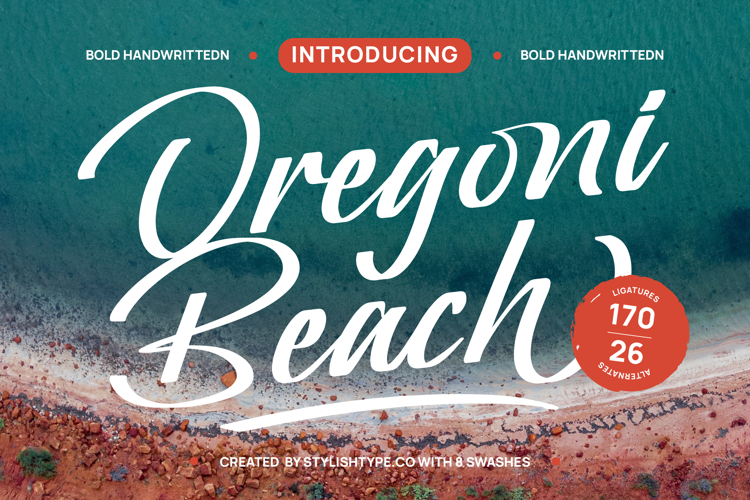
Oregoni Beach - Bold Handwritten Font
Unleash authentic handcrafted charm with Font Oregoni Beach - Bold Handwritten Font Script, a truly captivating typeface designed to make a statement. Its bold, flowing strokes exude a sense of effortless elegance and organic authenticity, mimicking genuine human touch. This script font offers an immediate visual impact, perfect for projects demanding , yet polished, aesthetic that stands out with its dynamic grace.
Experience unparalleled design flexibility with Font Oregoni Beach - Bold Handwritten Font Script. Beyond its captivating base form, this font boasts an impressive array of expressive ligatures, numerous versatile alternates, and practical swashes, empowering designers to craft truly unique compositions. These intricate details ensure every application feels bespoke and meticulously styled, lending a handcrafted precision to your designs.
With its extensive multilingual support, Font Oregoni Beach - Bold Handwritten Font Script adapts seamlessly across global markets, making it incredibly versatile for international projects. This crucial feature ensures your message resonates worldwide, maintaining its original charm and readability regardless of language. Embrace a font that breaks down communication barriers while elevating your brand's aesthetic.